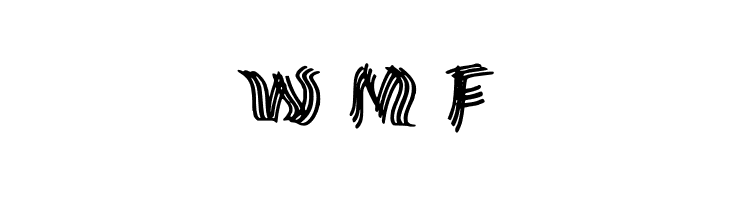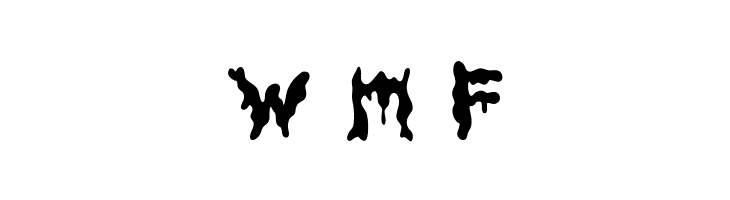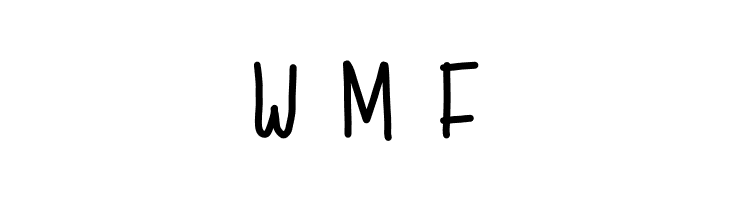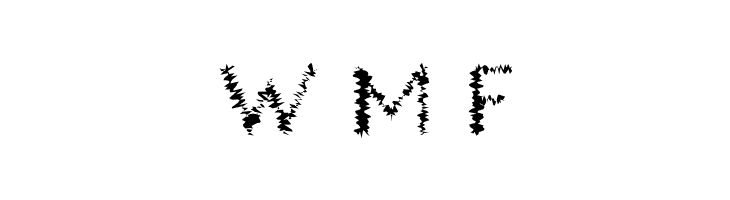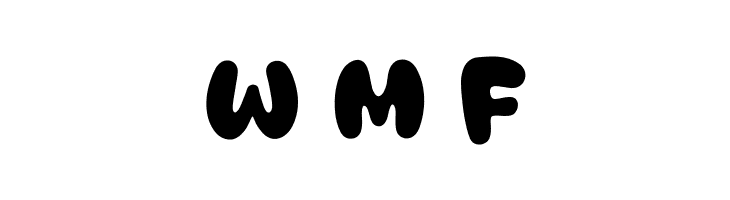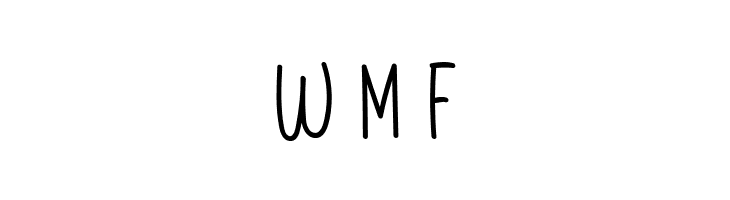
A playful, bold font with a bubbly, cartoonish design.
A geometric, angular font with a modern, digital aesthetic.
A playful and eclectic font with diverse character styles and bold numbers.
A playful, wavy font resembling silly string with consistent stroke thickness.
A chaotic, scribbled font with thick, uneven strokes and a dynamic, artistic flair.
A playful, bold font with a donut-like, three-dimensional appearance.
A bold, angular font with a futuristic, alien-like design.
An abstract, artistic font with bold, silhouette-like characters.
A bold, decorative 3D italic font with intricate gothic-inspired details.
A playful, hand-drawn font with a doodle-like, cartoonish style.
A playful, twisty, hand-drawn font with bold, dynamic strokes.
A bold, wide sans-serif font with a modern and clean design.
A playful, casual handwritten font with smooth, flowing lines.
A bold, modern font with high contrast and unique inverse styling.
A bold, modern font with unique inverse styling and strong visual impact.
A decorative font with a dripping, organic style and bold, uniform strokes.
A playful, handwritten font with a casual and lively style.
A bold, playful script font with a handwritten style and high contrast.
A bold, decorative font with a festive and playful style.
A bold, decorative font with a playful, textured design and italicized slant.
A playful, handwritten font with tall, narrow letters and a casual style.
A jagged, textured font with a dynamic and chaotic appearance.
A bold, handwritten-style font with a playful and informal appearance.
A bold, rounded, and playful font with a bubbly appearance.
A playful, hand-drawn font with bold, rounded characters and a whimsical style.
A bold, playful font with rounded edges and a whimsical, hand-drawn style.
A playful, handwritten font with tall, narrow letters and a casual style.